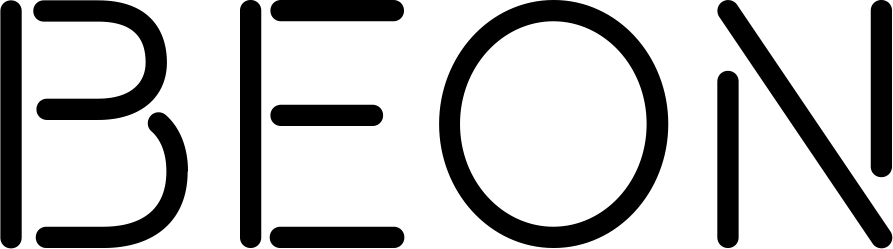
Beon Font
Designed byBastien Sozoo
Beon is a stencil font and works great for many various situations. Certainly, the letters are cut out and thin. Apply it to your logos, business cards, packaging boxes, etc. Don’t waste time and click on the download button as soon as possible to see how amazing this 80s neon font appears.